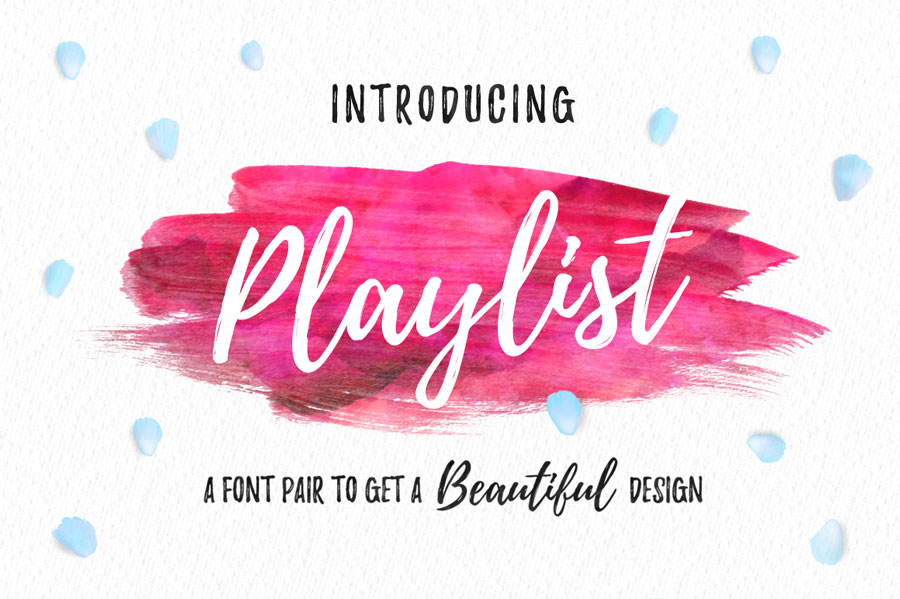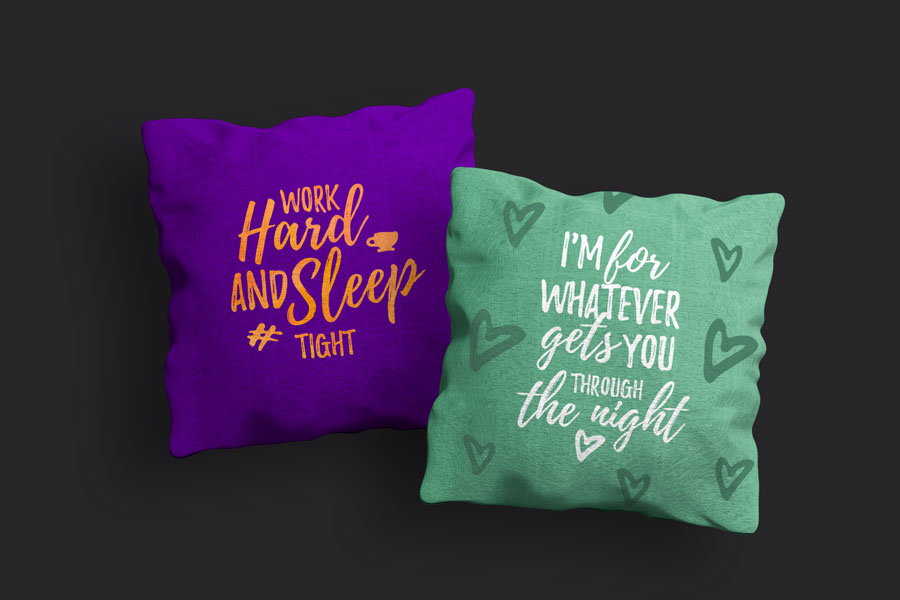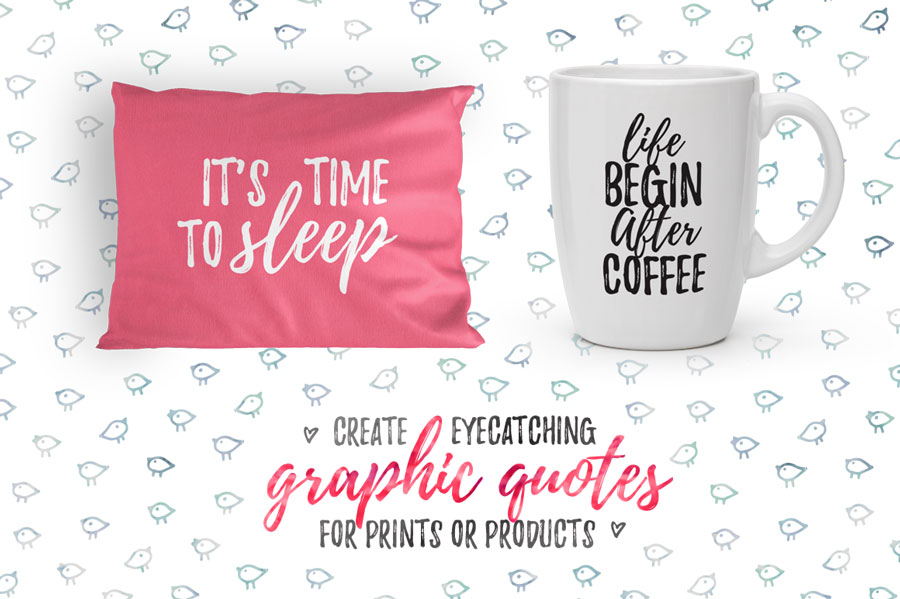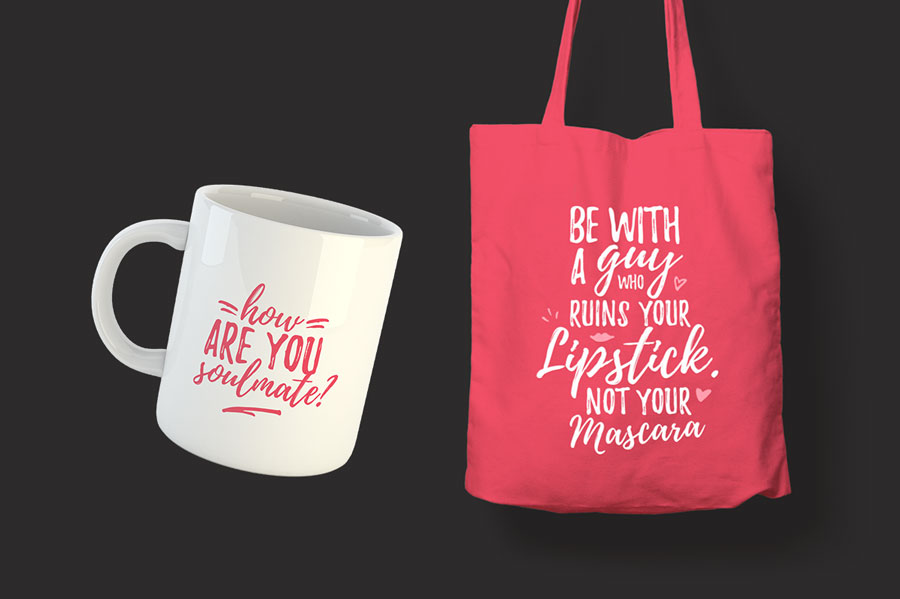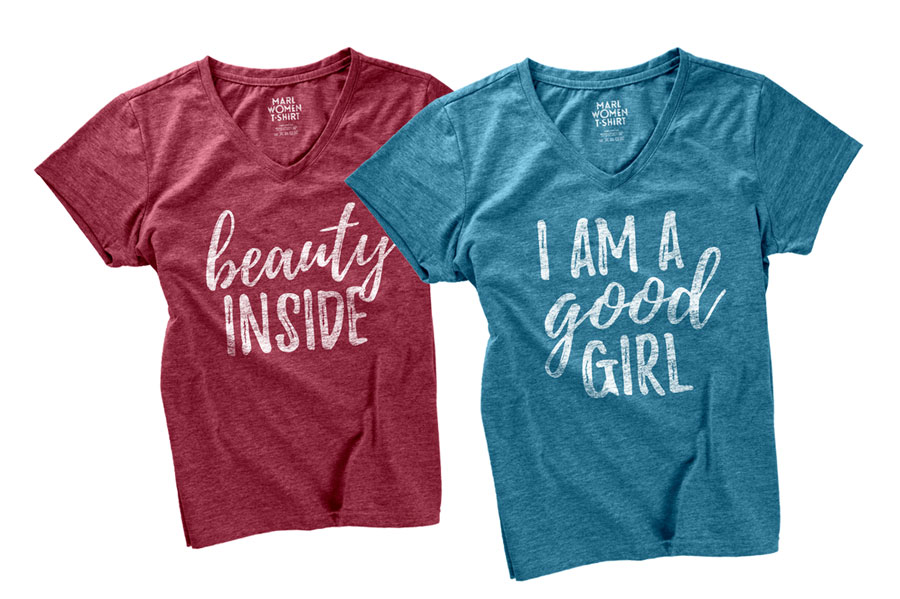
- Type: Script
Playlist Free Font:
Playlist commercial-use font is a perfectly imperfect hand-drawn font with dry-brush styles. Playlist Free Font contains 3 styles: Script, Caps, and Ornament, which you can combine to create beautiful designs.
- Combine Script, Caps, and Ornament styles to create unique typography designs.
- Add a natural hand-drawn brush effect to logos, invitations, and branding projects.
What styles are included?
Playlist includes three styles: Script, Caps, and Ornament, which can be combined to create unique designs.
Does Playlist Font have a handwritten look?
Yes. It features a hand-drawn dry brush style designed to create a natural and authentic handwritten appearance.